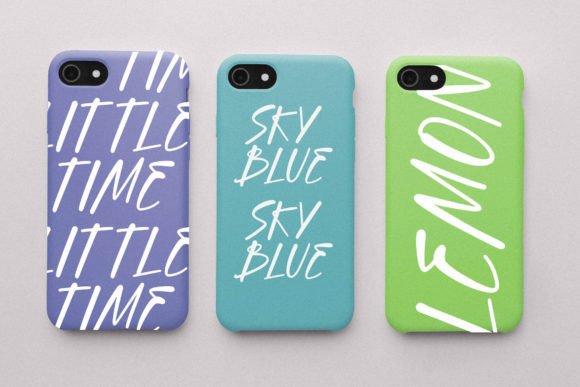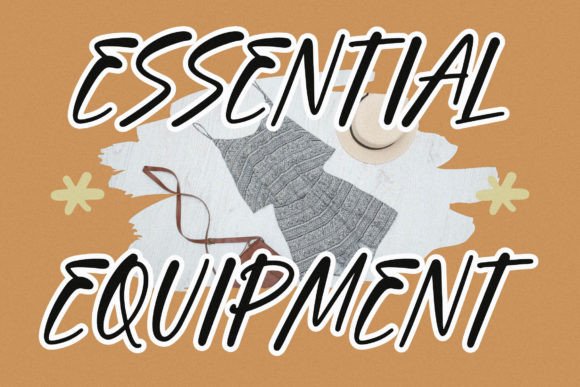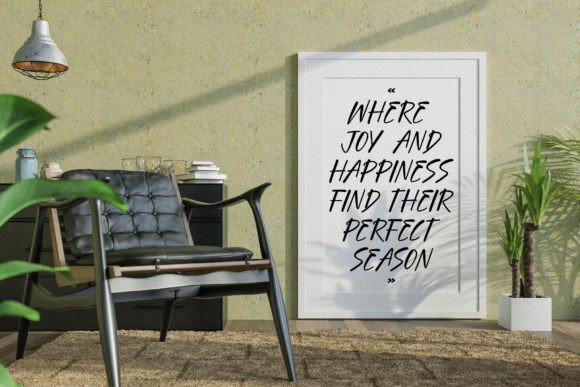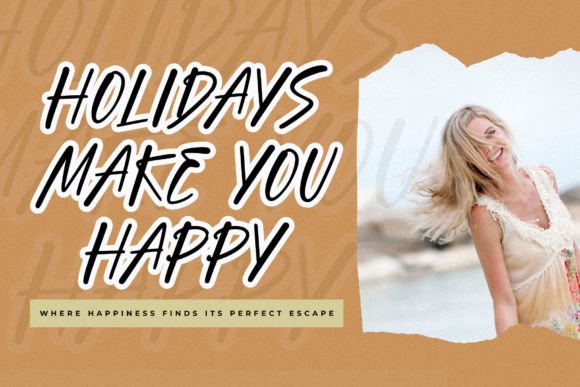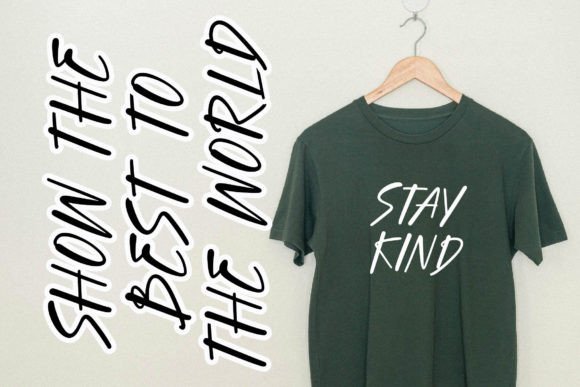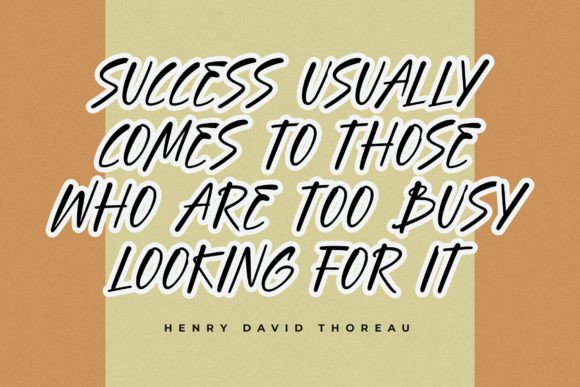
Introduction to Ruby Buster Font
Ruby Buster is a fresh handwritten font from Glorytype Studio, suitable for any project ranging from logos, branding projects, homeware designs, product packaging, mugs, quotes, posters, shopping bags, t-shirts, book covers, name cards, invitation cards, greeting cards, label, photography, watermark, special events, and all your other lovely projects that need a beautiful script taste.
Key Features of Ruby Buster Font
Why Choose Ruby Buster Font?
Ruby Buster Font offers exceptional quality and versatility, making it a valuable addition to your design toolkit. Whether you’re creating for personal projects or commercial use, Ruby Buster Font delivers professional results.